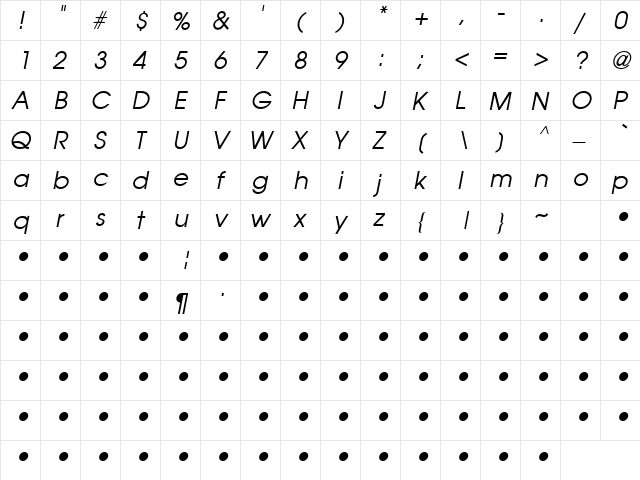
Confused 9 Italic
Design Context for Confused 9 Typeface
Confused 9 offers clean, dependable letterforms without strong stylistic allegiance, making it a practical choice for designers who need flexibility. The slanted form adds forward momentum and visual energy.
Pro Tip: Try Confused 9 for annotation and caption copy alongside an upright companion — the contrast in angle creates a dynamic but ordered typographic system.